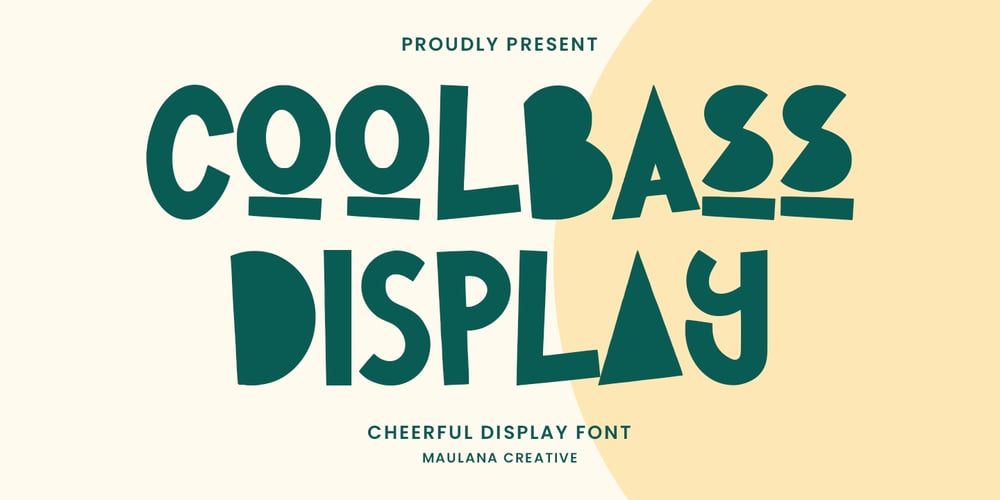
MC Coolbass Font Family was designed by Gilang Maulana and published by Maulana Creative. MC Coolbass contains 1 styles and family package options. Coolbass cheerful display font. Heavy stroke, fun character with a bit of ligatures. To give you an extra creative work. Coolbass cheerful display font support multilingual more than 100+ language. This font is good for logo design, Social media, Movie Titles, Books Titles, a short text even a long text letter and good for your secondary text font with script or serif. Make a stunning work with Coolbass cheerful display font. Cheers, Maulana Creative